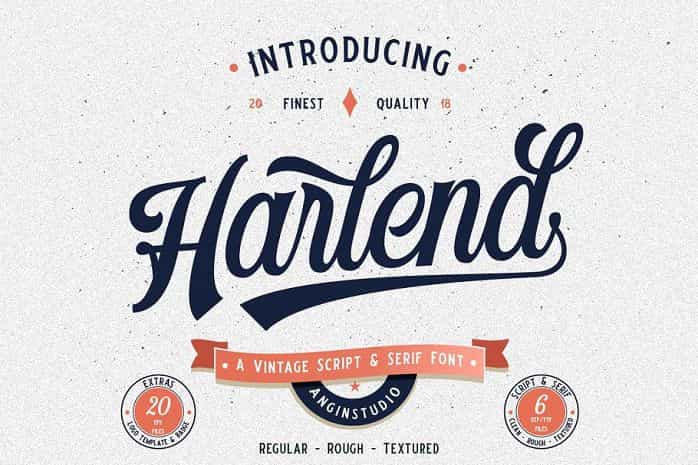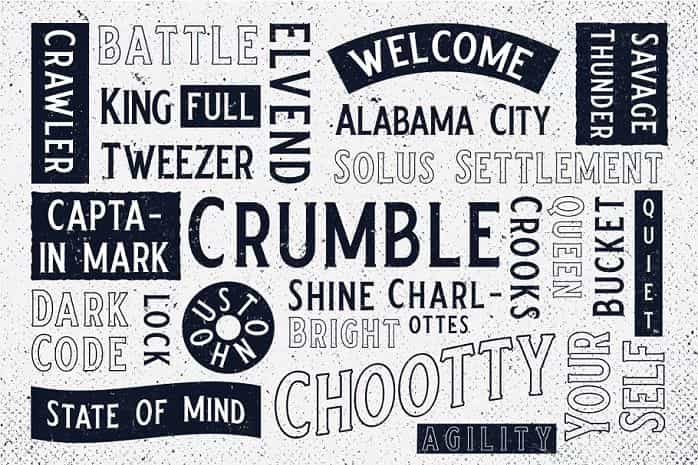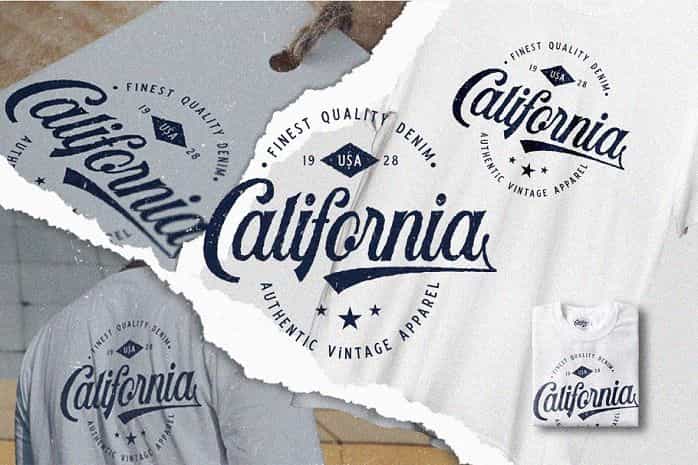
Introducing Harlend Font. If design is cooking, we are going to give you an ingredient that can be used for making many foods. Harlend is a script font that was created by carefully hand lettering and it looks like an old American style of sign painting, labels, and packaging. Harlend has an alternates which will keep your design from being bored because you have more options to use. This font can be used for logos, labels, prints, t shirt design and other stuff.